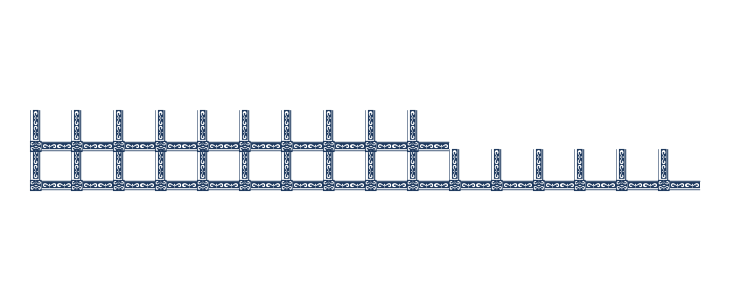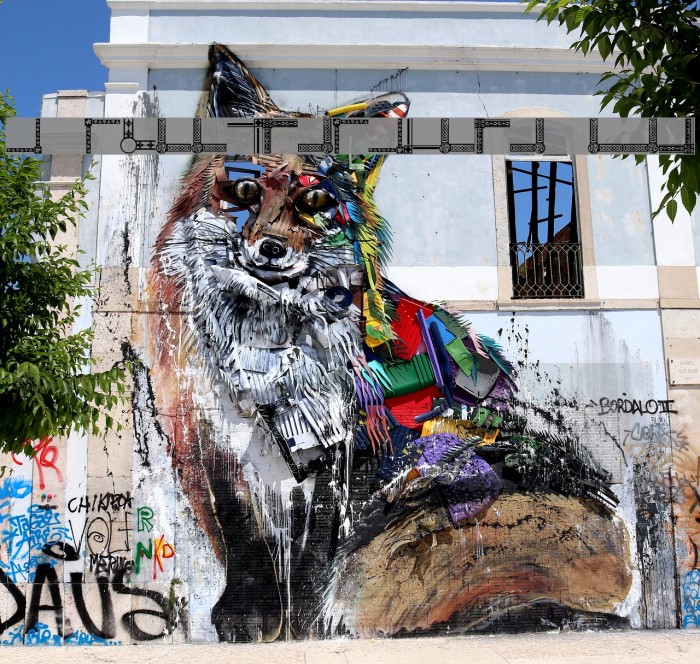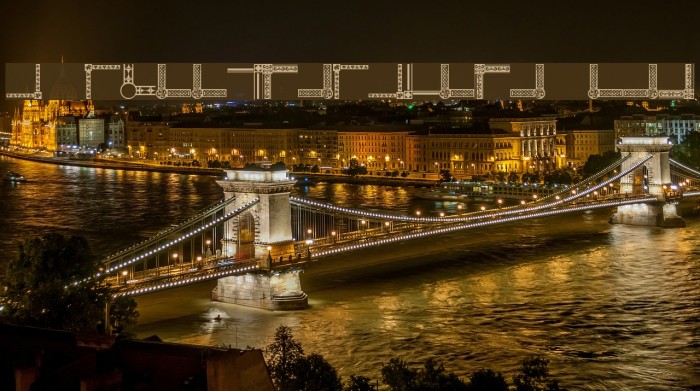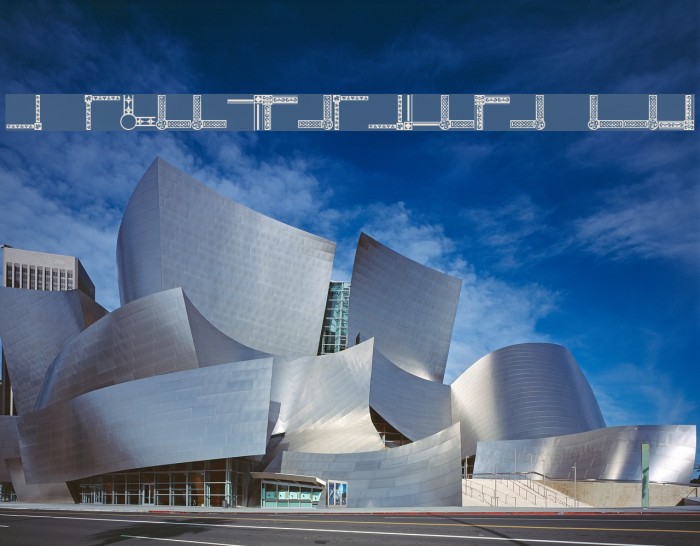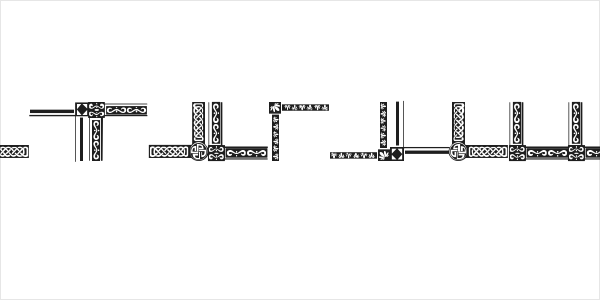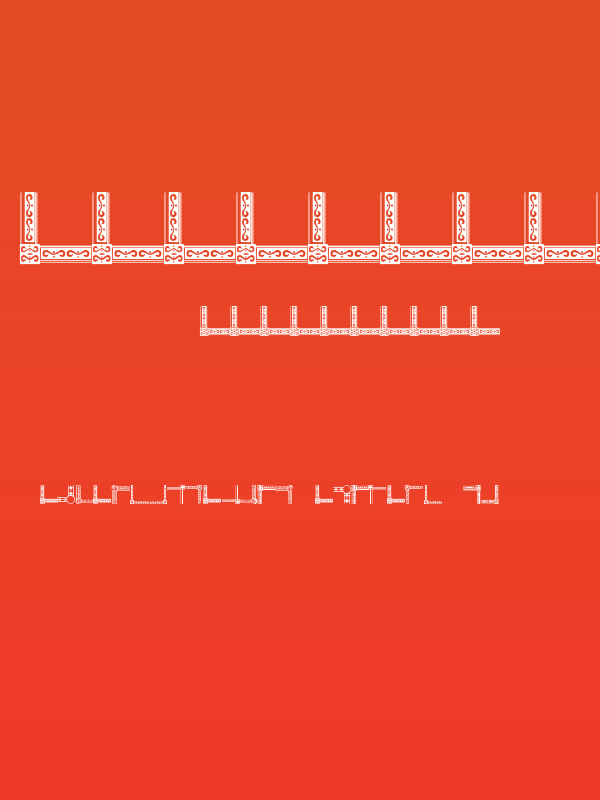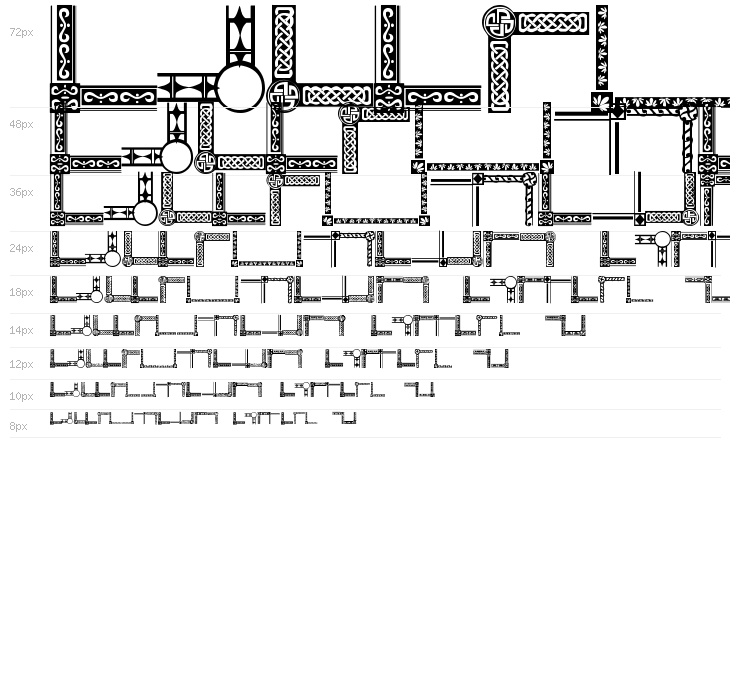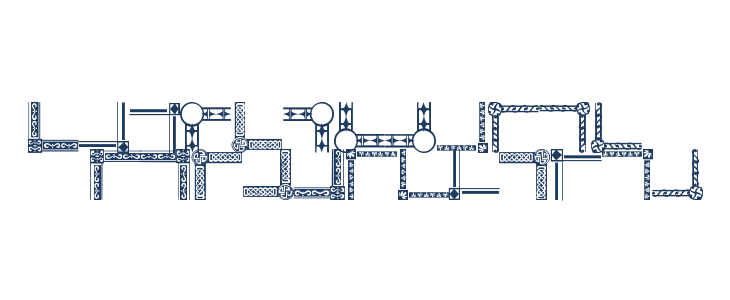
Vintage Decorative Corners 20 Font
Vintage Decorative Corners 20 Description
This is not a valid font. The image contains decorative corner elements that are typically used for embellishing borders or frames. These elements feature intricate patterns and designs, often with a vintage or ornate style. They are not designed to represent alphanumeric characters or standard typographic symbols.
| Overall Style | Vintage, Decorative |
| Use Case | Borders, Frames, Decorative elements |
| Proposed Projects | These elements can be used in graphic design projects such as creating ornate frames, enhancing invitations, or adding decorative touches to digital scrapbooking pages. |